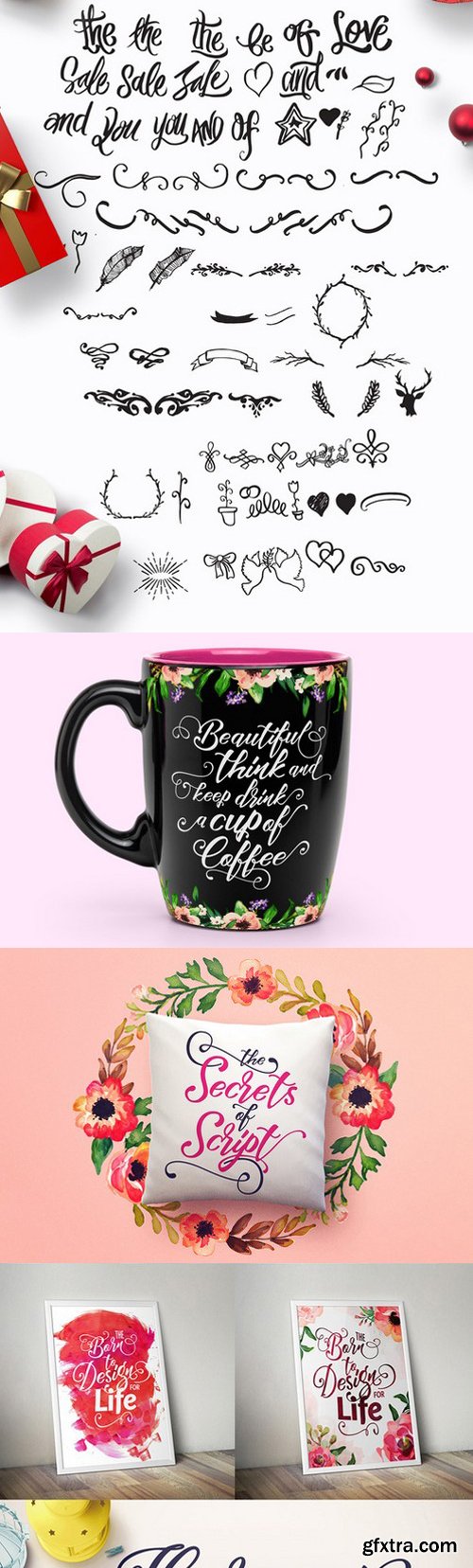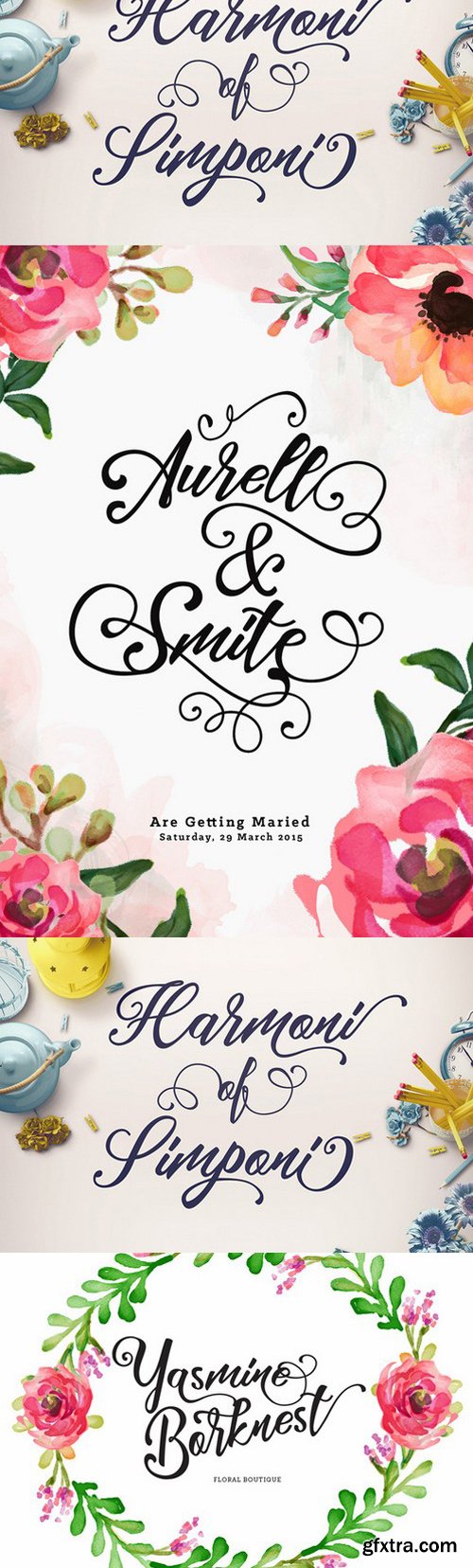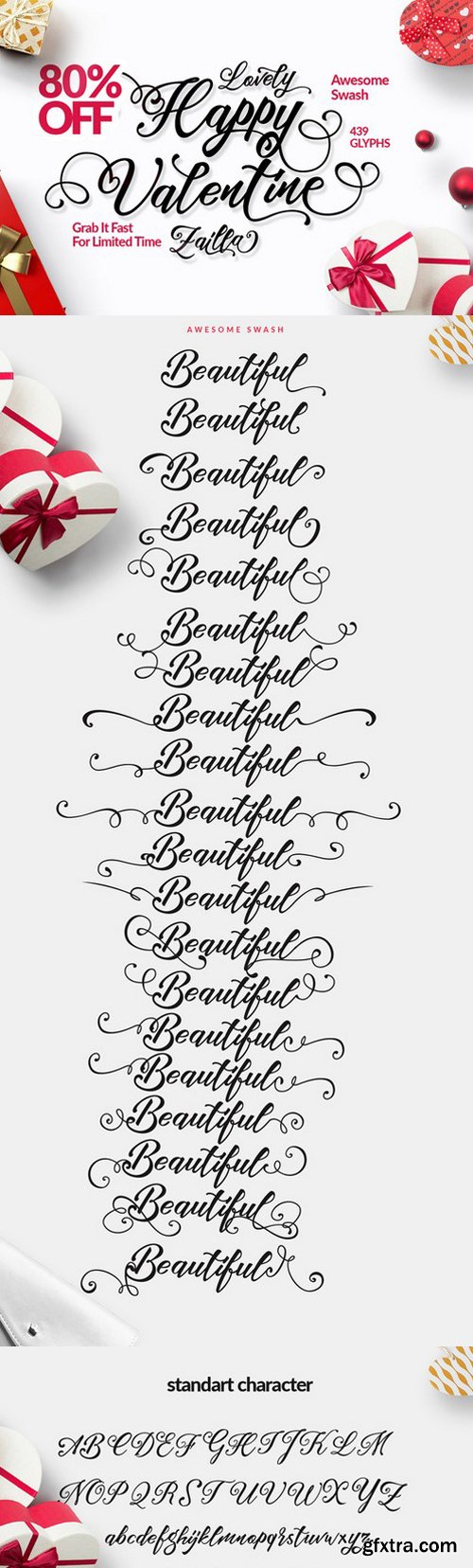
Lovely Valentine Day Font
Zailla is a script typeface beautiful calligraphy and modern. This font is suitable for a wide range of products each project, such as wedding invitations, greeting cards, correspondence, and various other purposes and many more. This language support that some international fonts, there are 439 glyphs and 191 Altenate so many options that you can use for your projects,